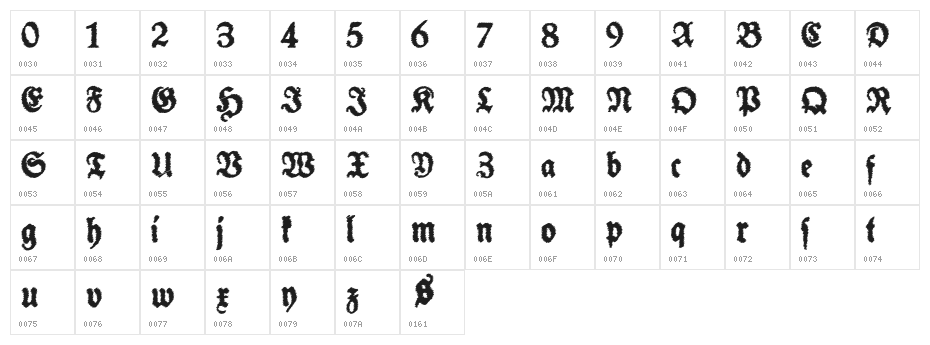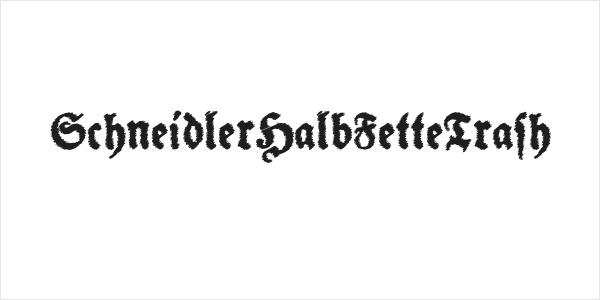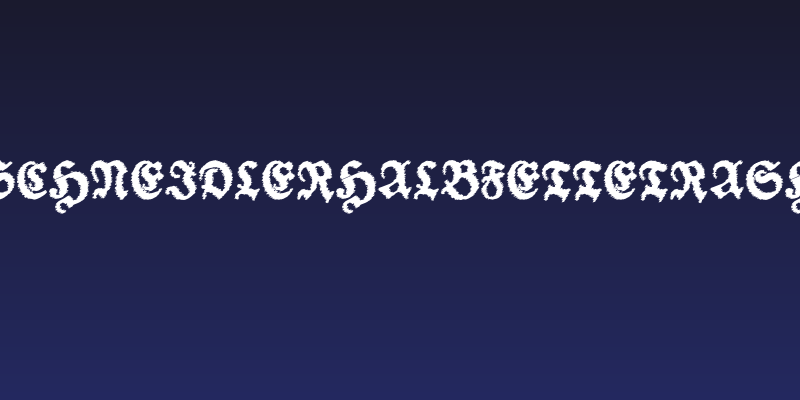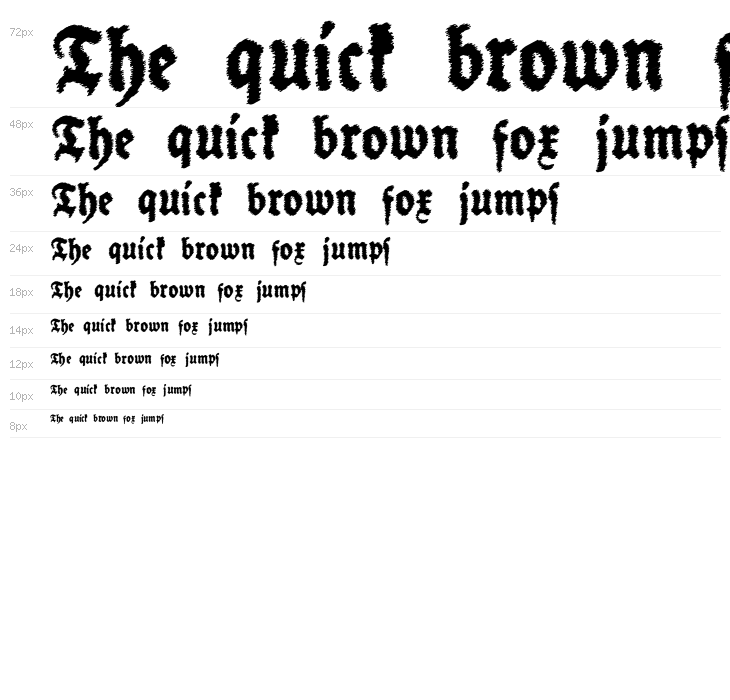
SchneidlerHalbFetteTrash Font
SchneidlerHalbFetteTrash Description
This font features a bold and dramatic blackletter style, characterized by its intricate and ornate letterforms. The strokes are thick and textured, giving a sense of historical depth and richness. Each character is carefully crafted with sharp angles and decorative elements, reminiscent of traditional Gothic script. The uppercase letters are particularly elaborate, with flourishes and embellishments that enhance their visual impact. The lowercase letters maintain a consistent style, offering a cohesive and harmonious look. The numerals are equally bold, ensuring they stand out in any design.